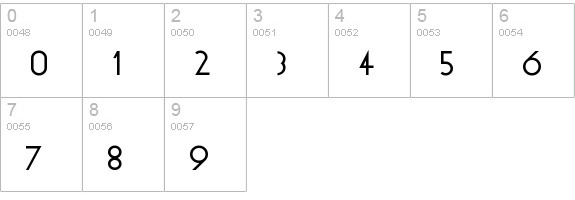
Compass Normal Font Details
Compass Normal is the standard, neutral variant in the Compass typeface family \xE2\x80\x94 well suited to general body text, paragraphs, and standard typographic work.
Compass Normal font is a versatile and modern typeface that exudes elegance and sophistication. With its clean lines and balanced proportions, this font is perfect for a wide range of design projects, from branding to editorial design. The Compass Normal font is designed to be easily readable yet stylish, making it a great choice for both print and digital applications. Best of all, Compass Normal font is available for free download at FontsMarket.com. This means you can easily access this high-quality font for your projects without any cost. Don't miss out on this fantastic opportunity to enhance your designs with the timeless charm of Compass Normal font. Download it today and let your creativity soar!